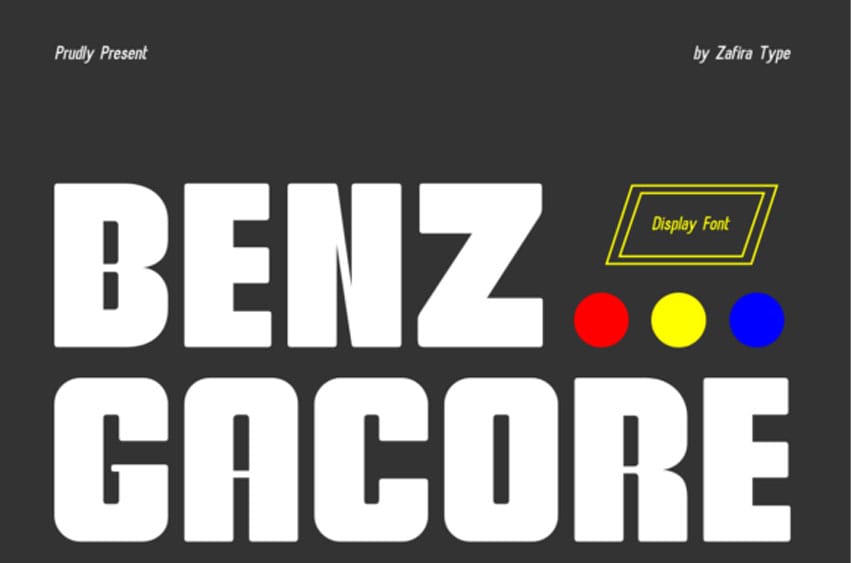
Benz Gacore Font Immerse yourself in the robust elegance of Benz Gacore, a sans-serif display font beautifully sculpted with a striking modern flair. It’s the embodiment of daring uniqueness, making it a must-have for design projects seeking that unforgettable impact. Its proportional letterforms breathe a sense of contemporary professionalism into every word, ensuring an easily digestible and aesthetically pleasing perspective for readers.
Benz Gacore shines in its simplicity, delivered via clean, geometric shapes and surgical precision. A quintessential companion for titles, logos, and headlines, this font holds the power to command attention and leave a lasting impression.
Experience Benz Gacore in two exclusive styles: the Regular, delivering bold sophistication through its uncluttered, crisp style, and the Oblique, which introduces vibrancy and momentum through a subtly angled approach. These two variants ensure that Benz Gacore provides the flexibility and dynamism necessary to bring your visionary designs to life.